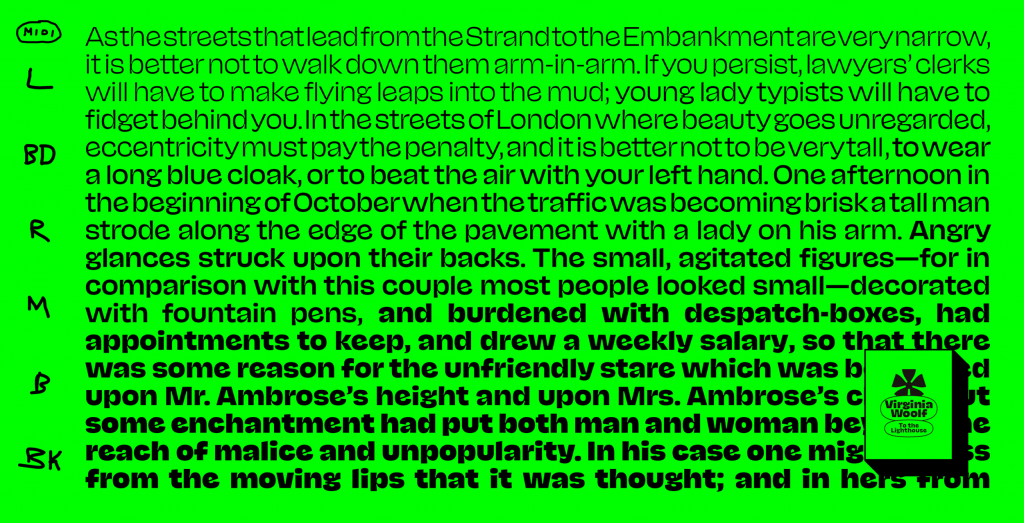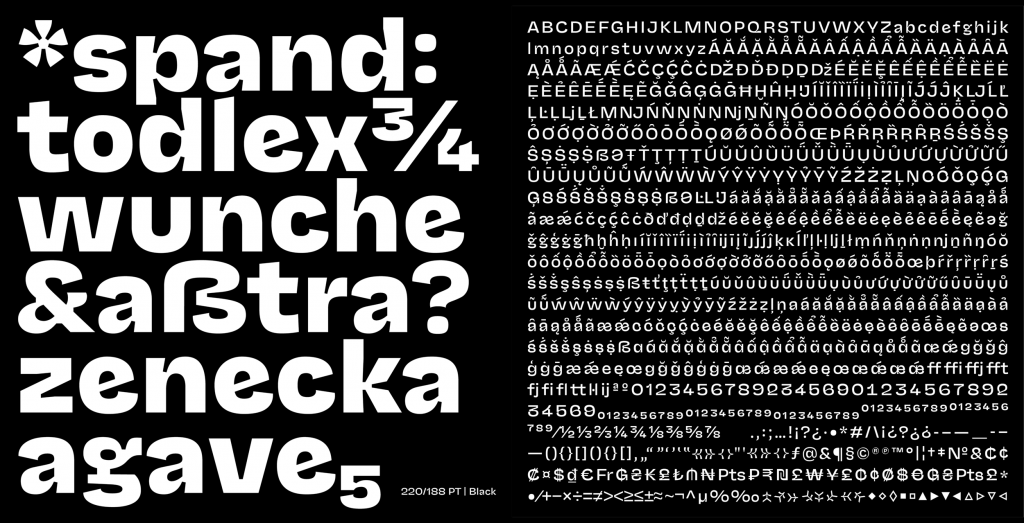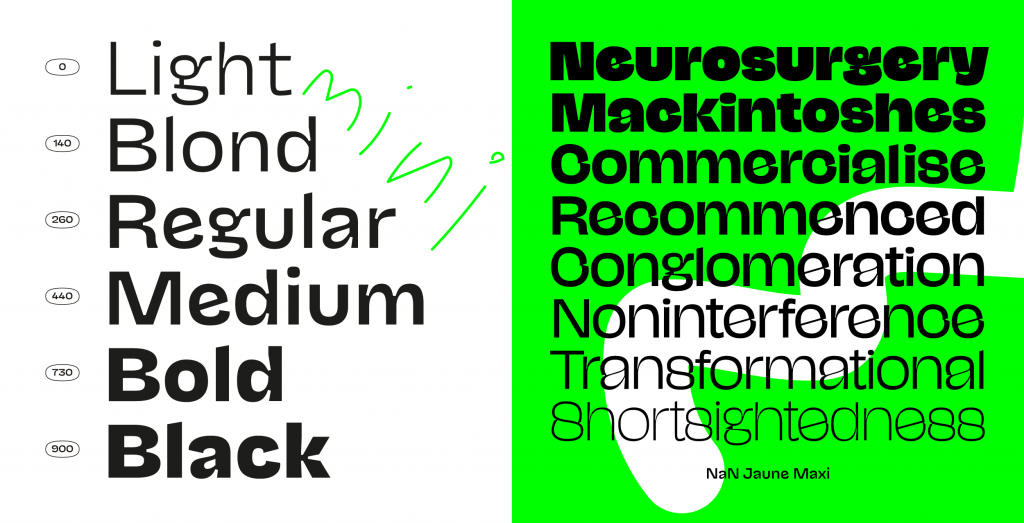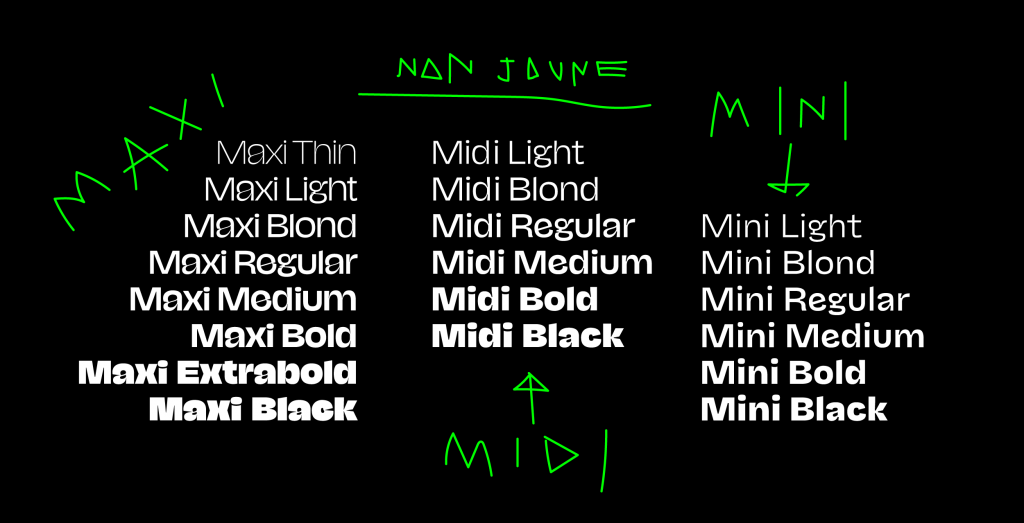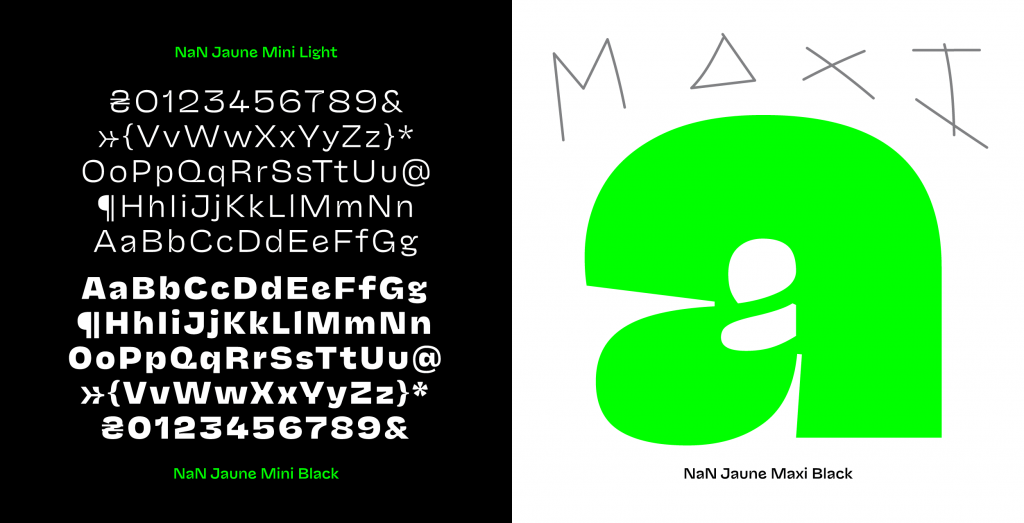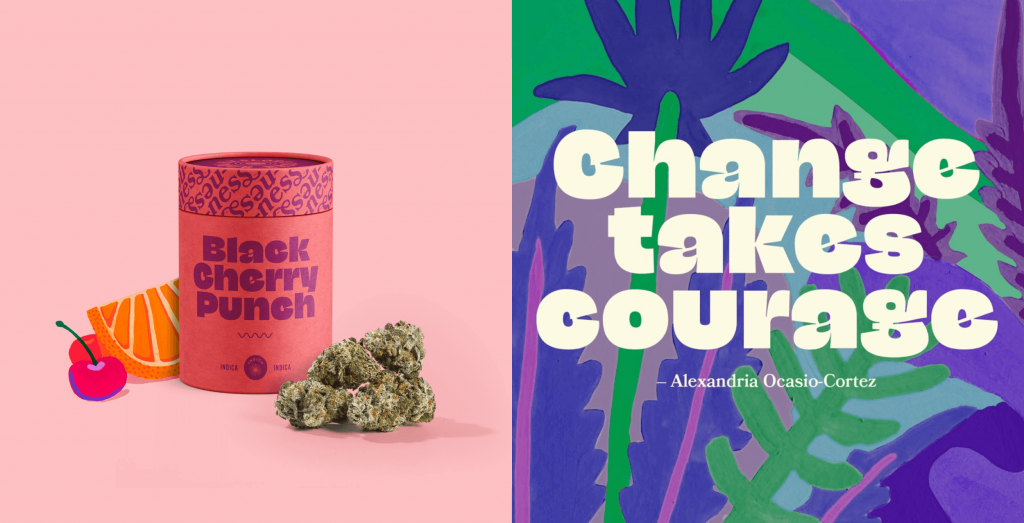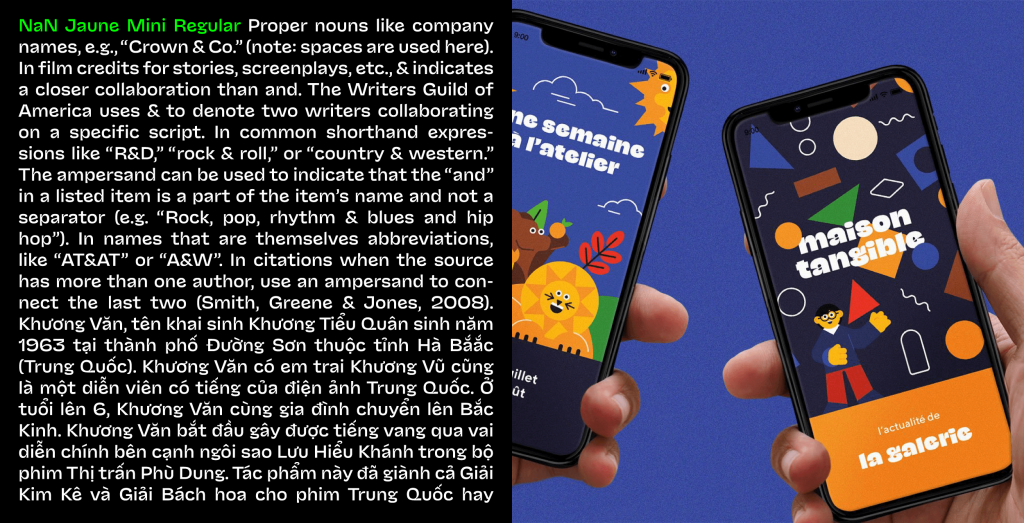
Name: NaN Jaune
Designer: Jérémy Landes
Foundry: NaN.xyz
Release Date: May 2021
Back Story: Back in 2016, NaN Jaune began as custom lettering for the musician Jaune (though he ended up not using it). Its inspiration comes from midcentury type design legend Roger Excoffon’s Antique Olive, released in 1962. Landes became fixated upon drawing a compact sans serif with the shortest possible ascenders and descenders, tight-as-you-can letter spacing, plus the charming warmth provided by inconsistencies and an organic way of drawing.
“I tried to put in some of the joy, comfort, and warmth I find in cooking and eating,” says Landes. “I often make this analogy between melting cheese and Jaune Maxi’s closed aperture.” Indeed, the blobby, almost distorted counterspaces within the letterforms do recall the slump of some good Gruyère collapsing under a hot broiler, a sentence I never thought I’d write in an article about a typeface.
Why’s it called NaN Jaune? Besides the original tie to the musician of the same name, Jaune also means yellow in French. Landes says, “I like the idea of associating a color with a font—it brings some poetry into the equation.” All the typefaces from this foundry come with the prefix NaN.
What are its distinguishing characteristics? Jaune, while harkening back to Antique Olive as an ancestor, boasts crazy unique features all its own. Check out, for example, the number of shapes that make up the two-story lowercase g! Marvel at the amoeba-like (or melted-cheese-like, if you prefer) counters! The cuts and joins that are not sharp but end in squared-off geometry! The m with its one sharp cut and one gentle curve! The extreme stroke contrast within the Maxi family! Landes says, “The hardest part was to envision how Jaune could go further than the first bold titling styles. Drawing the super-thin weights and text versions was a conceptual challenge, but leaving my comfort zone to make the Jaune spirit work in such opposite styles was the most surprising and fulfilling part of the process.”
What should I use it for? “Jaune is an incredible tool for branding projects,” says the designer. “The Maxi styles do the heavy work of defining a distinctive identity and the Mini sub-family takes care of spreading the brand spirit more subtly where comfort and legibility are at stake.” The typeface brings flair to editorial print projects too.
What other typefaces do you like to pair it with? Boogy Brut’s tall x-height makes it a fine serif companion. For a more sign-painterly vibe that fits well with Jaune’s organic curves, PVC Dinasty (coming soon as an addition to the PVC family) will make a bang-up partner.